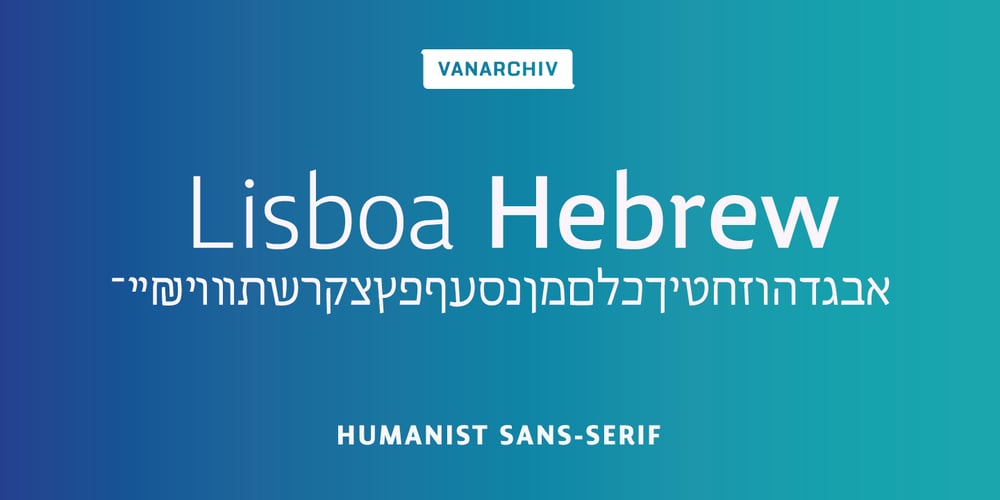
Lisboa Hebrew
Lisboa Hebrew font
Lisboa Hebrew Font Family was designed by Ricardo Santos and published by Vanarchiv. Lisboa Hebrew contains 10 styles and family package options. Lisboa Hebrew is humanist sans-serif typeface base on the same design as the original Lisboa (2005). The main structure is more close to the Sephardic proportions, where the letterforms contains reverse contrast and the terminals following the same calligraphic approach (Humanist). There are some characters and figures designed as small caps which have the same proportions from Hebrew. Latin transliteration characters were also included.